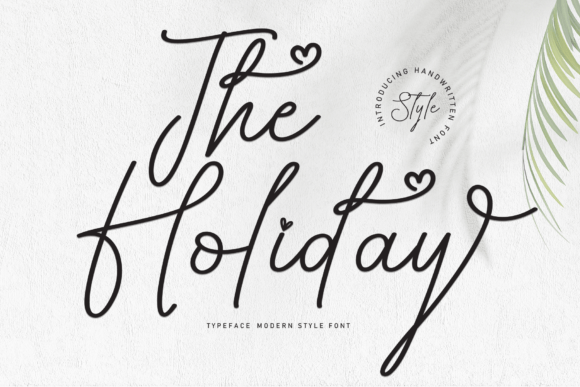
Step into a world of elegance and charm with The Holiday Font, a captivating script font that will transform your creative projects into masterpieces. Crafted by the skilled hands of andikastudio, this enchanting font exudes a romantic aura that is sure to leave a lasting impression.
With its graceful curves and flowing lines, The Holiday Font is a visual delight. Each letter is meticulously designed to evoke a sense of warmth and nostalgia, making it the perfect choice for greeting cards, wedding invitations, posters, and any project that calls for a touch of timeless beauty.
The versatility of The Holiday Font is truly remarkable. Its wide spectrum of applications makes it a must-have for designers, crafters, and anyone looking to add a personal touch to their work. Whether you're creating digital designs or handwritten notes, this font is guaranteed to elevate your projects to new heights.
Indulge in the romantic allure of The Holiday Font and let your creativity soar. Its captivating charm will add a touch of elegance to your designs, making them stand out from the crowd. Embrace the magic of this enchanting script font and watch your creative visions come to life in a breathtaking display of artistry.